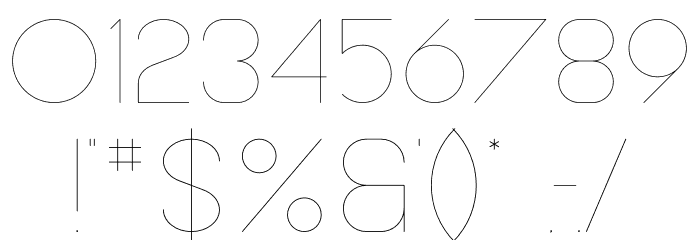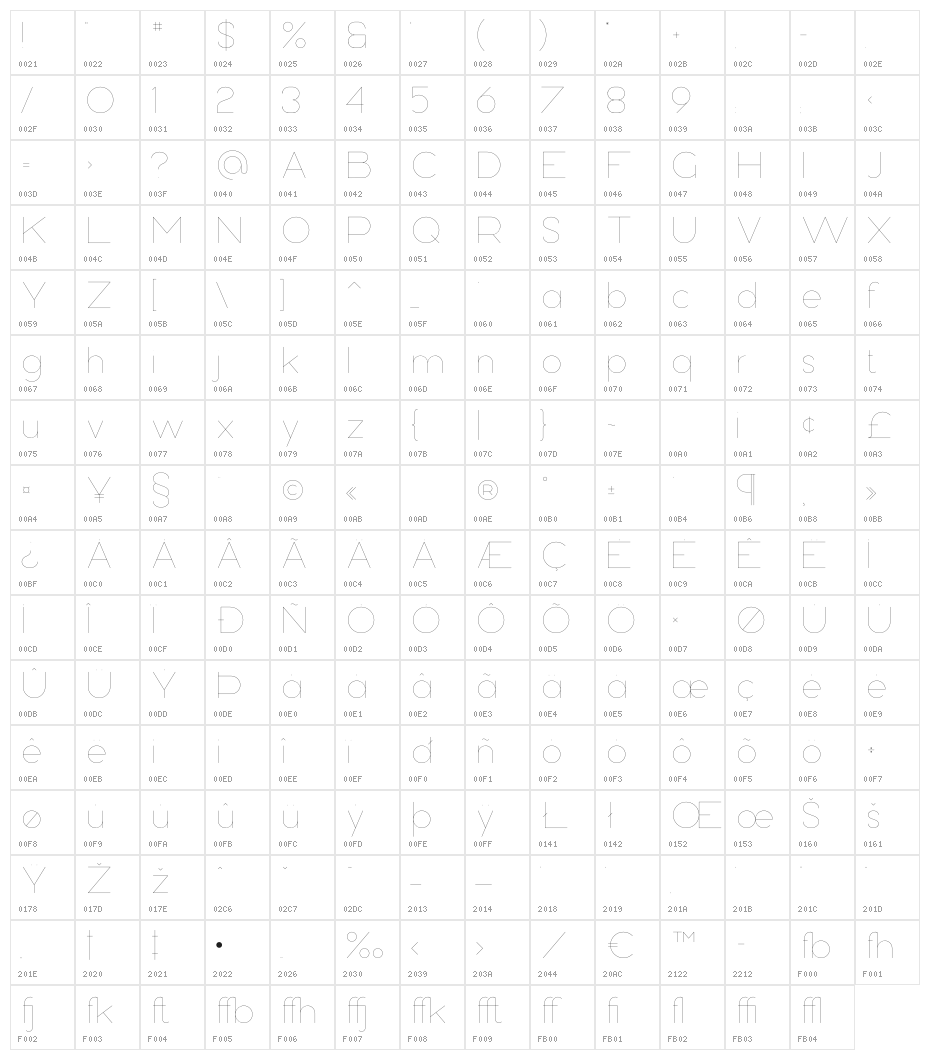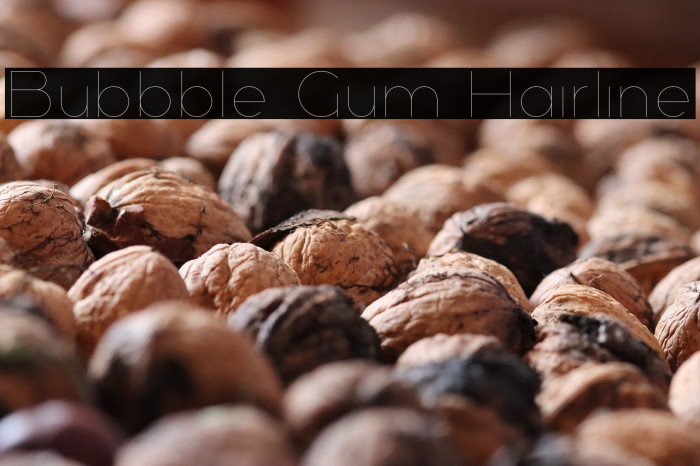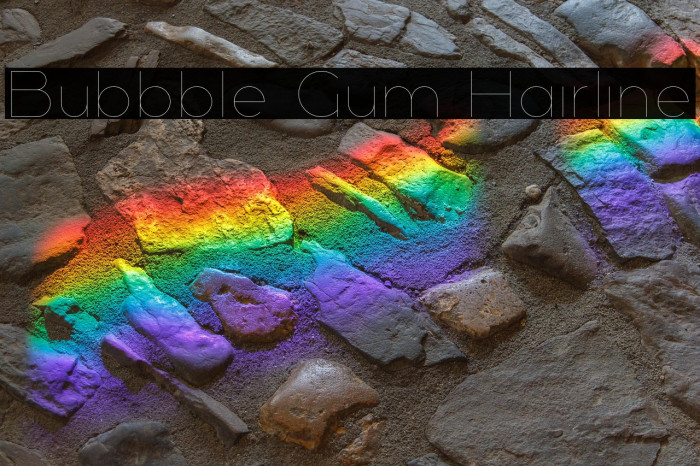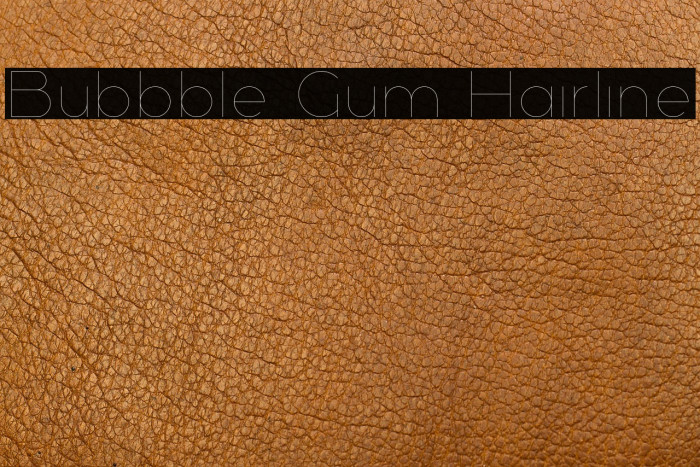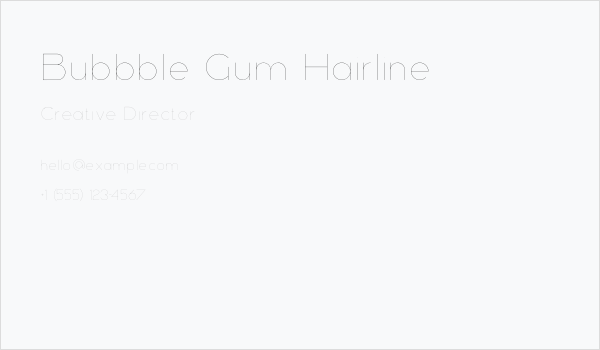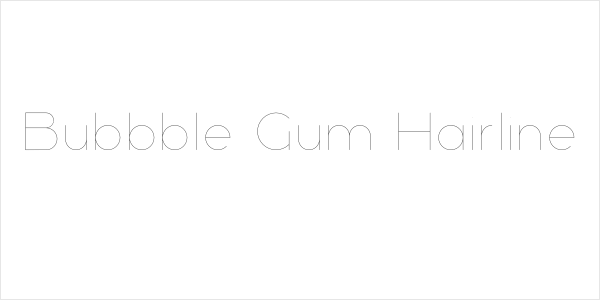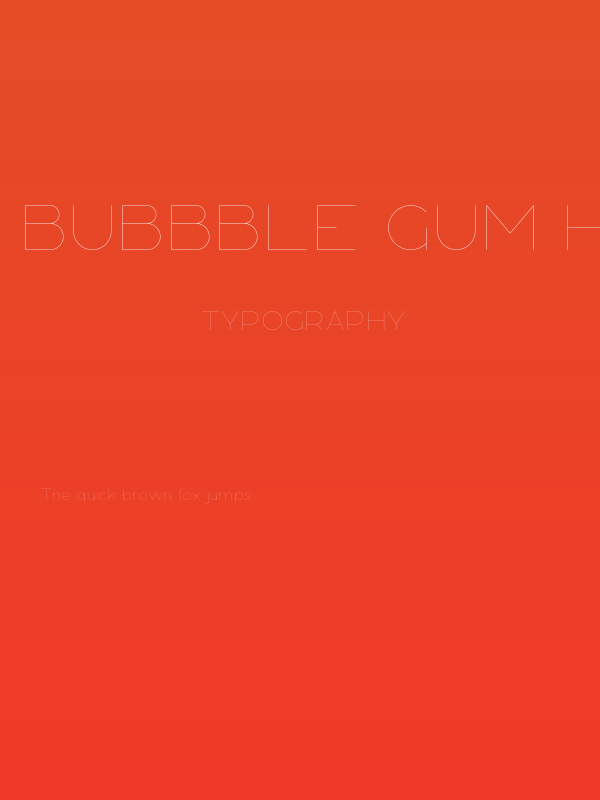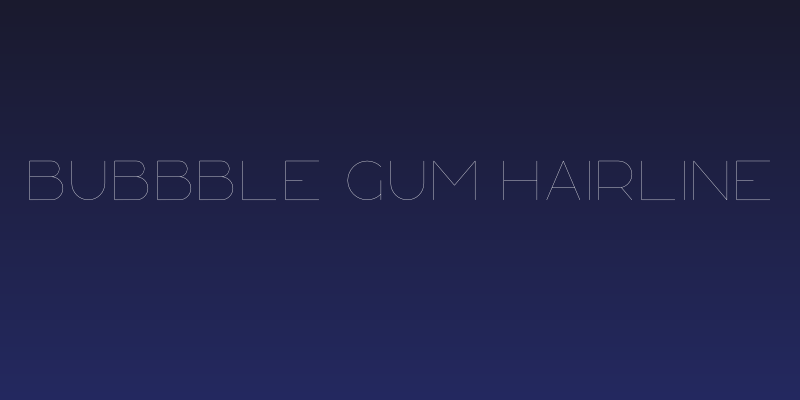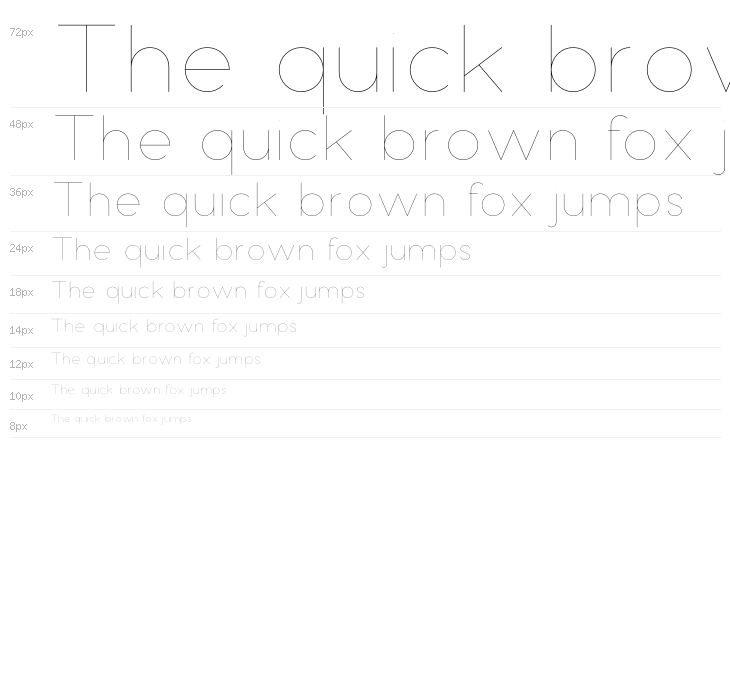
Bubbble Gum Hairline Font
Bubbble Gum Hairline Description
This font features a clean and minimalistic design with ultra-thin strokes, giving it a delicate and airy appearance. The characters are constructed with geometric precision, emphasizing simplicity and elegance. The uppercase and lowercase letters maintain a consistent height, contributing to a harmonious and balanced look. The numerals and special characters are designed with the same thin lines, ensuring uniformity across all glyphs. This font's modern aesthetic makes it suitable for contemporary design projects that require a subtle yet sophisticated touch.
| Proposed Projects | Ideal for fashion magazines, luxury branding, minimalist websites, and modern art galleries. |